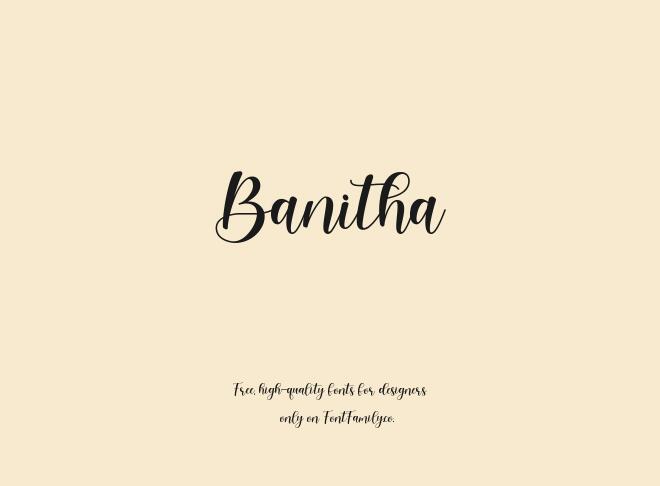
Banitha Font
Banitha Font is a modern, elegant, and handwritten typeface that effortlessly blends creativity with sophistication. Its clean and unique design makes it a perfect choice for logo design, branding, invitations, and other design projects that require a personal touch. Compared to other fonts, Banitha Font stands out with its distinctive character shapes and fluid lines, offering a fresh and contemporary take on handwritten fonts. The font is highly versatile, making it suitable for a variety of design contexts, from print to digital. Its balanced and well-structured letterforms ensure readability, while the subtle elegance of its design allows it to add a touch of class to any design. With Banitha Font, designers can bring a unique and personalized touch to their projects, making it a valuable addition to any font collection.